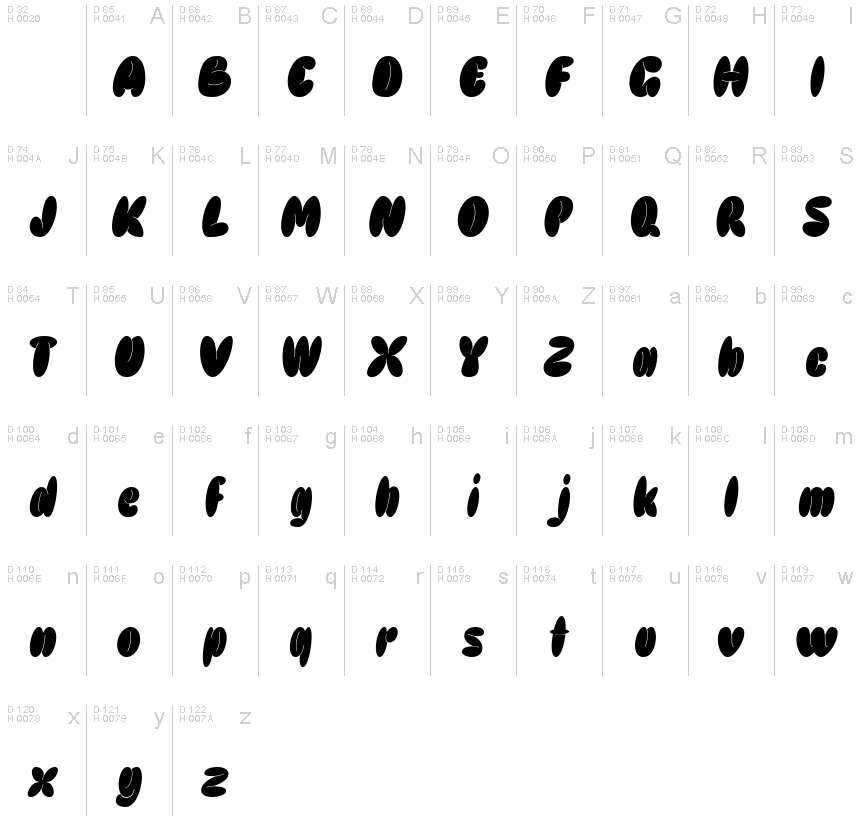
Graphy DEMO Filled
Graphy Filled is a captivating display font that exudes a whimsical, cartoon-inspired charm. Crafted by Dharmas Studio, this bold and expressive typeface immediately commands attention with its playful, rounded letterforms and distinctly exaggerated stroke thickness.
The font's dynamic personality is further accentuated by its fluid, almost handwritten-like appearance, making it a versatile choice for a wide range of design applications, from vibrant logos and eye-catching headlines to engaging children's illustrations and playful branding. Whether used as the focal point or as an accent, Graphy Filled's engaging style and strong visual presence can infuse any design with a delightful, lighthearted spirit.
Its distinctive character makes it a standout choice for designers seeking to add a touch of playfulness and character to their work.